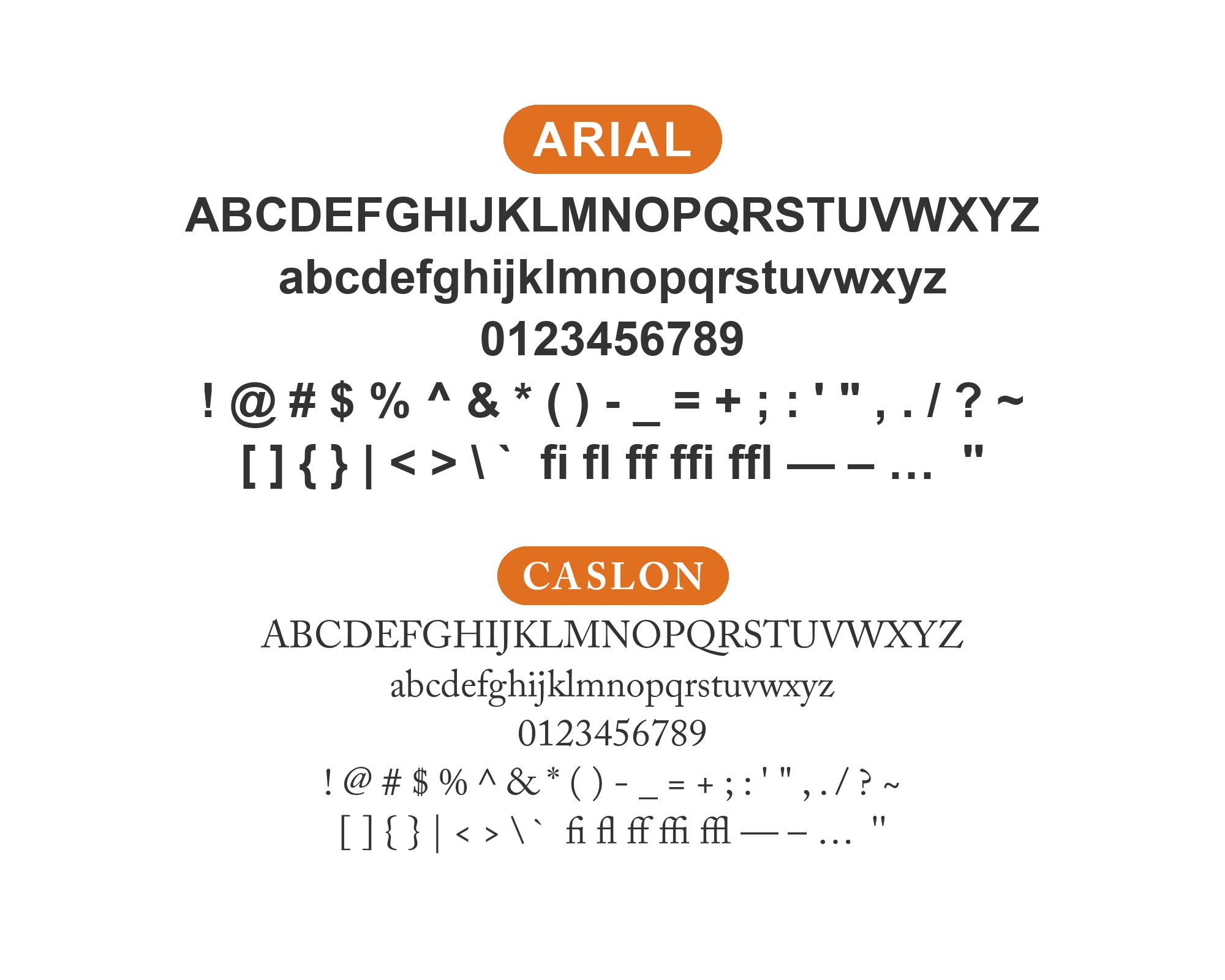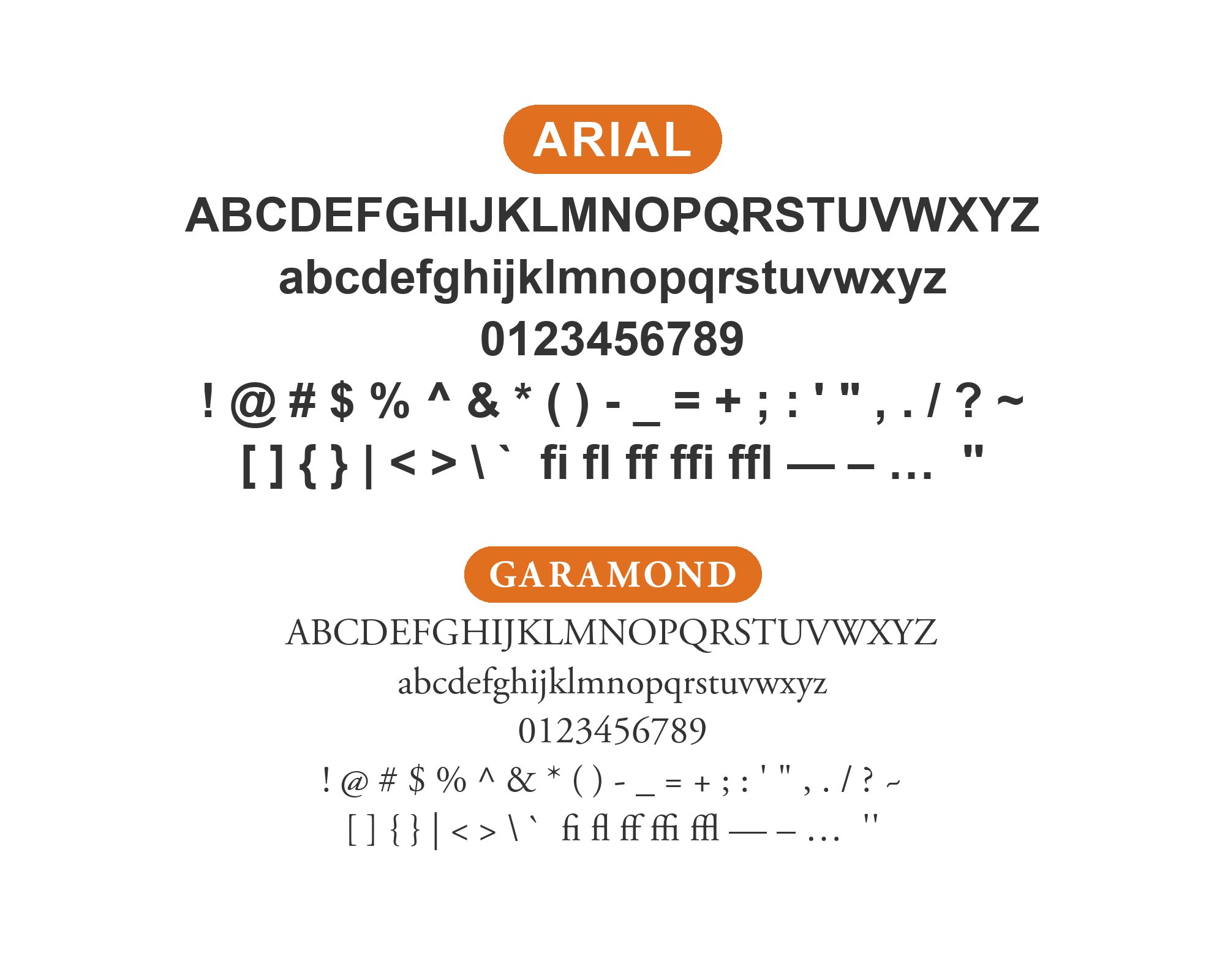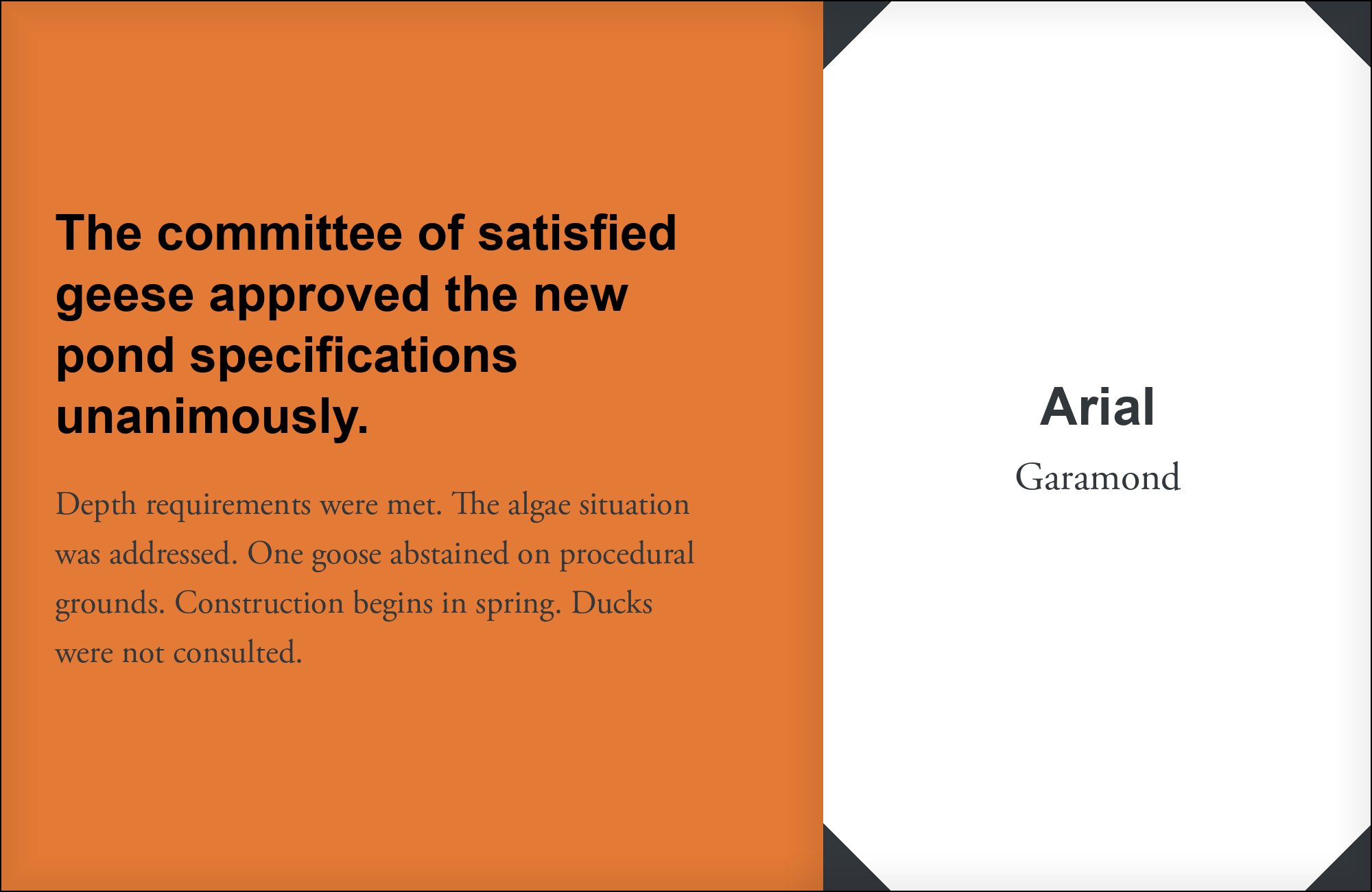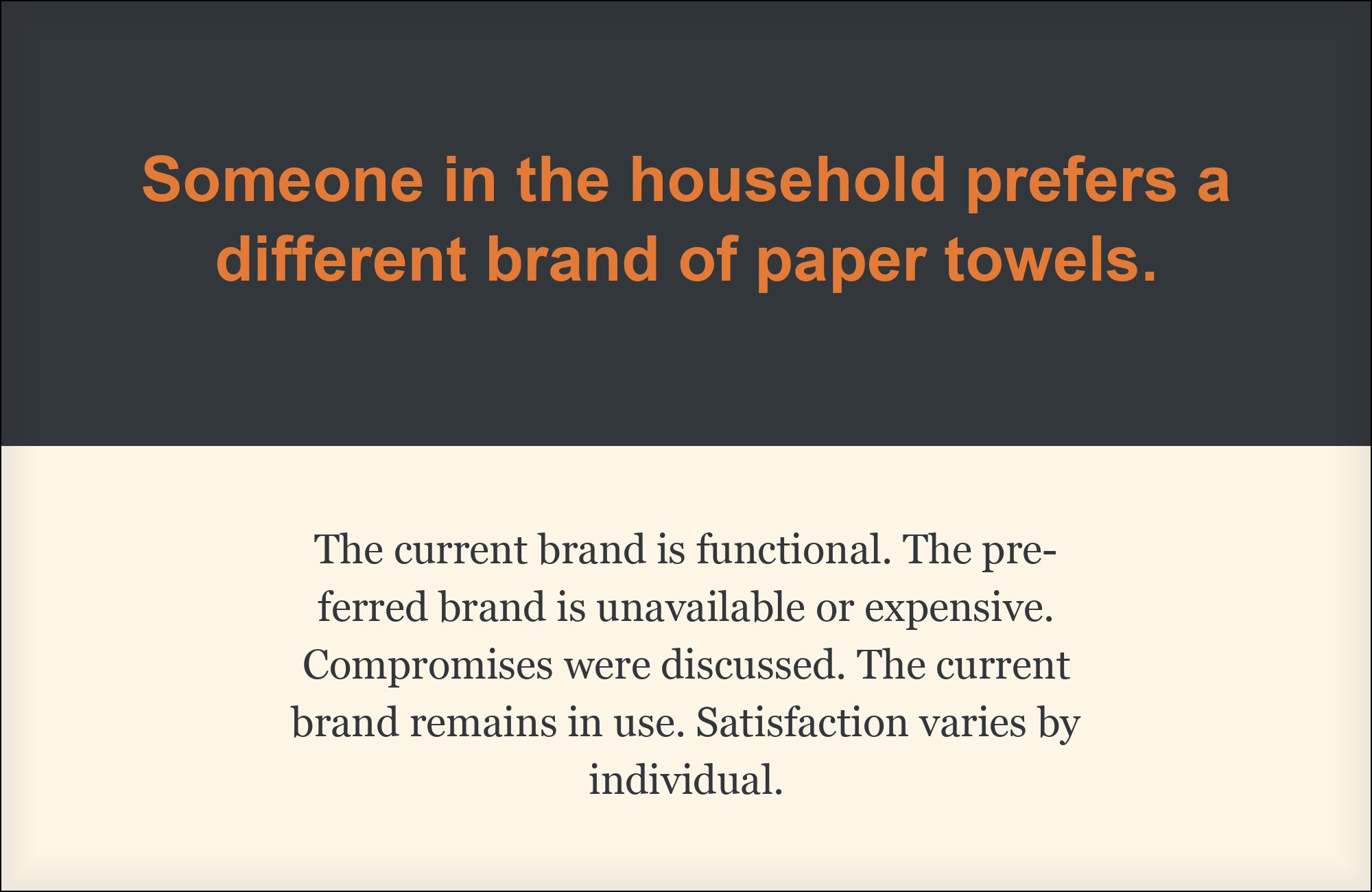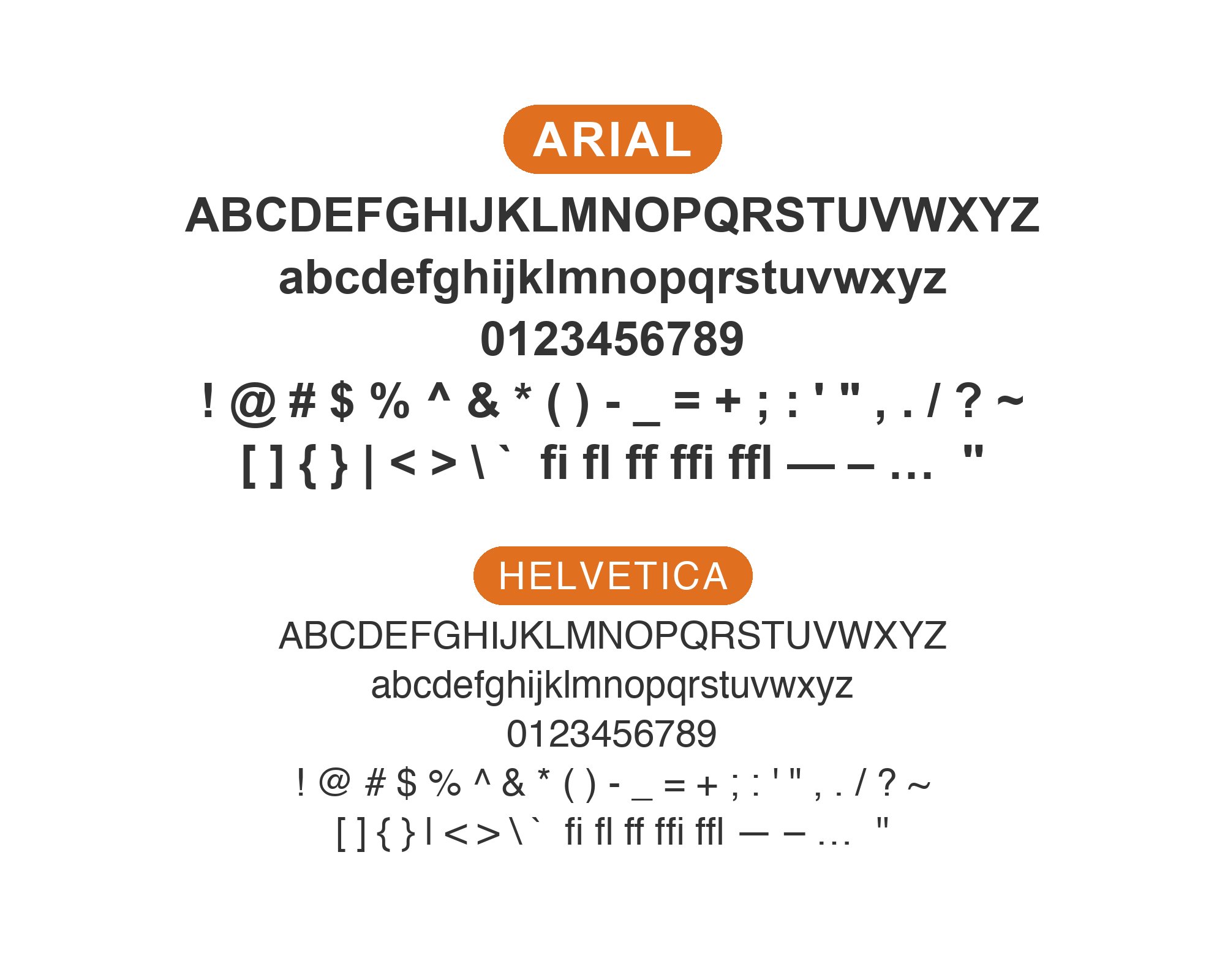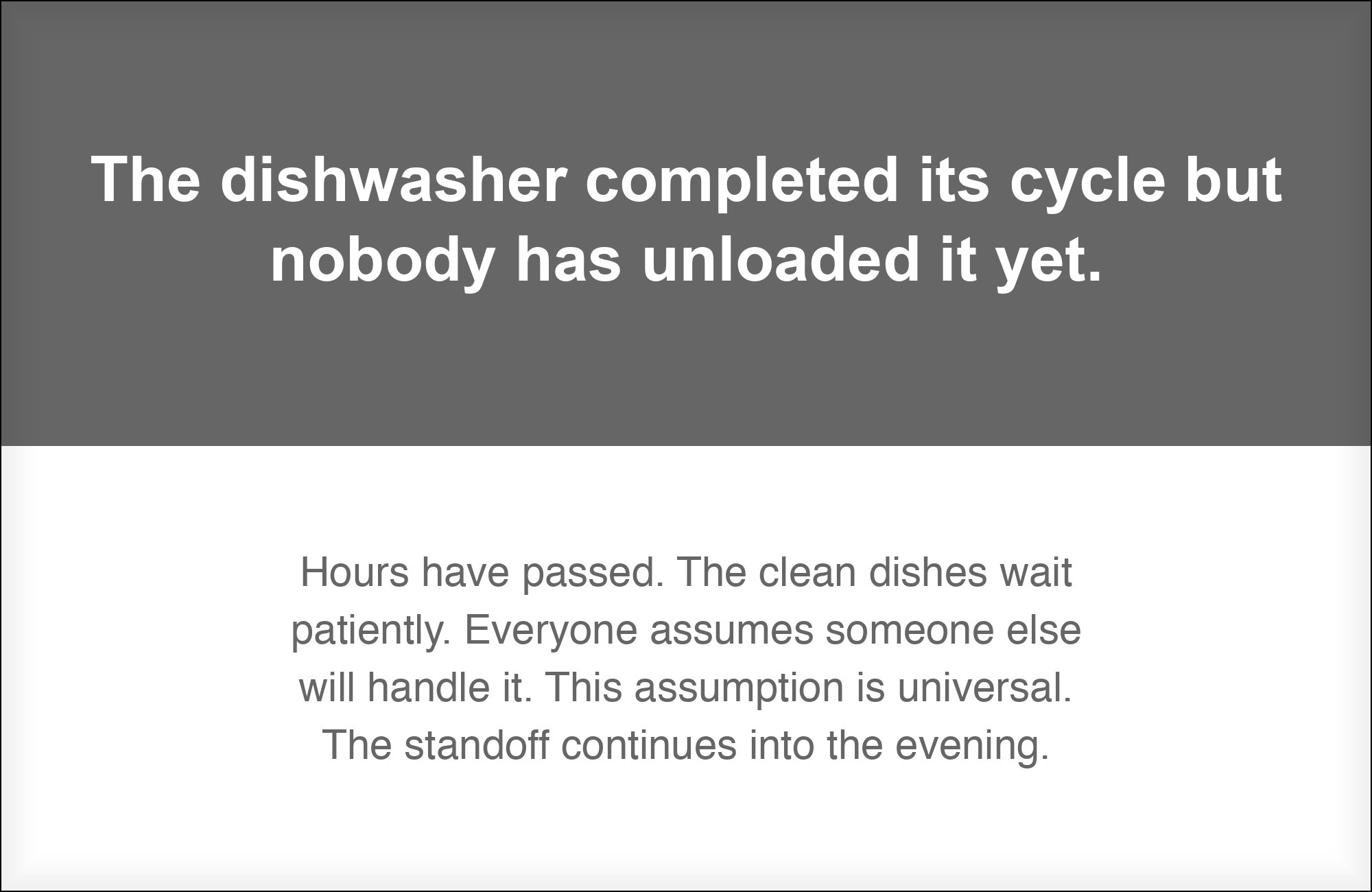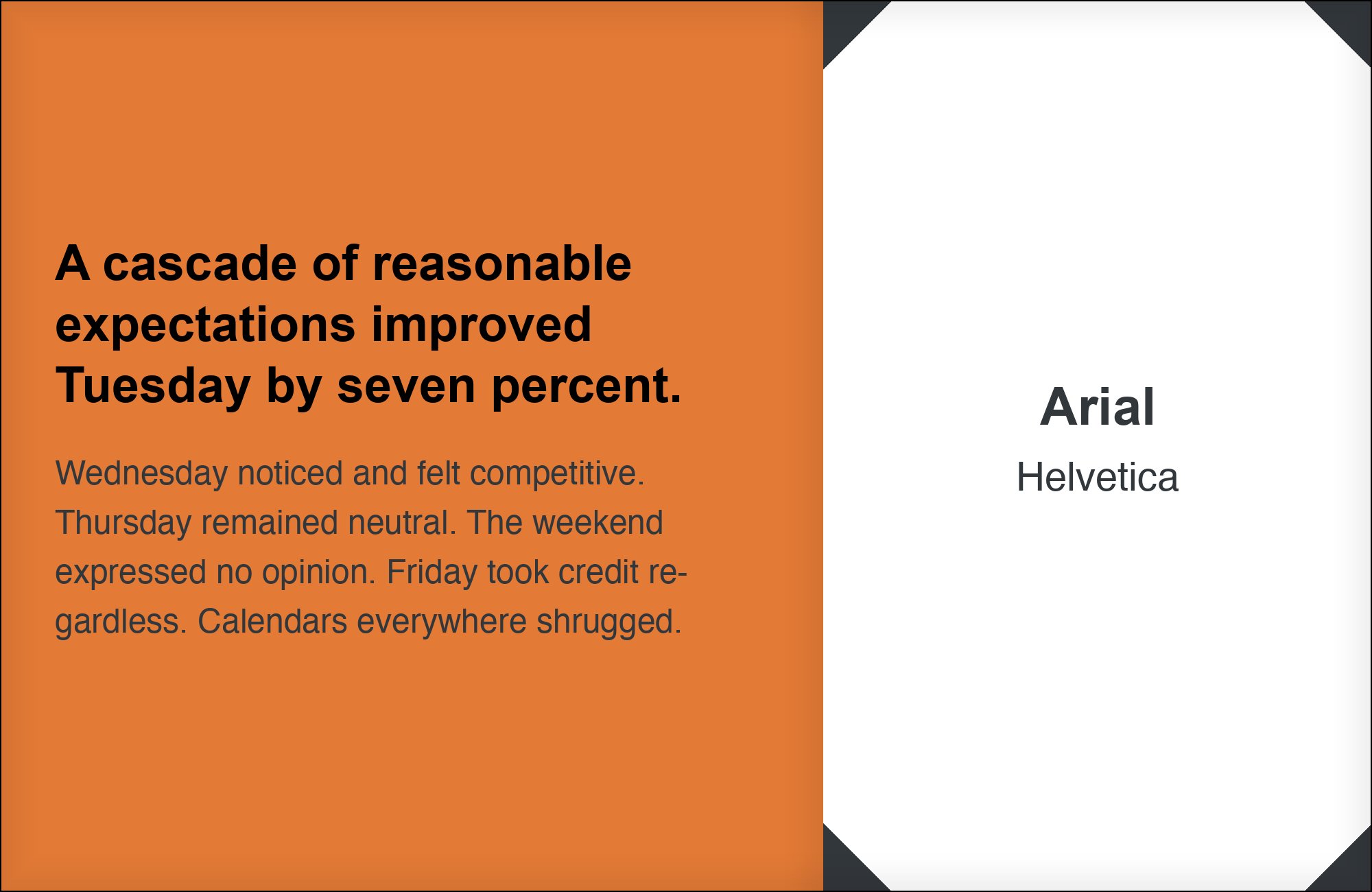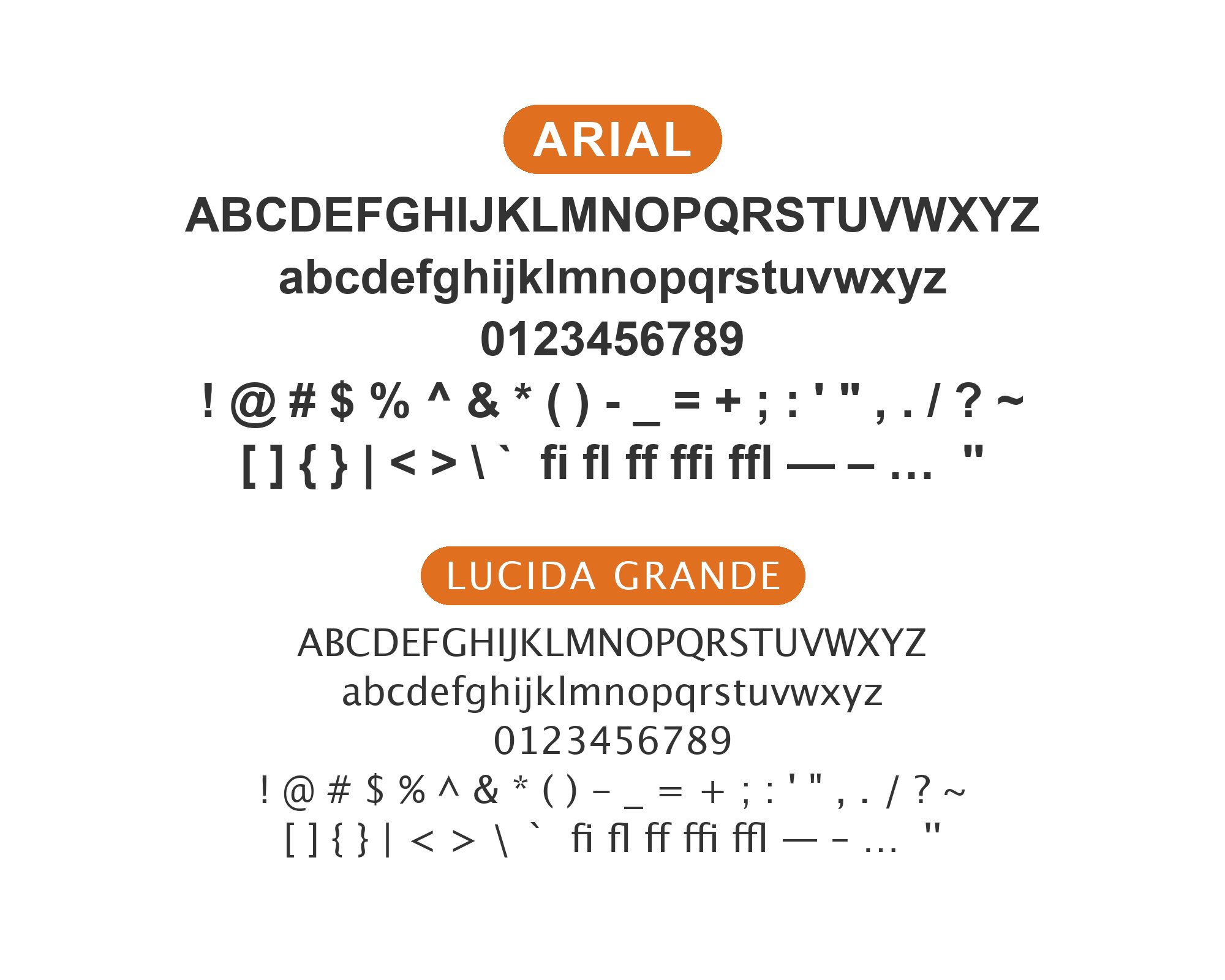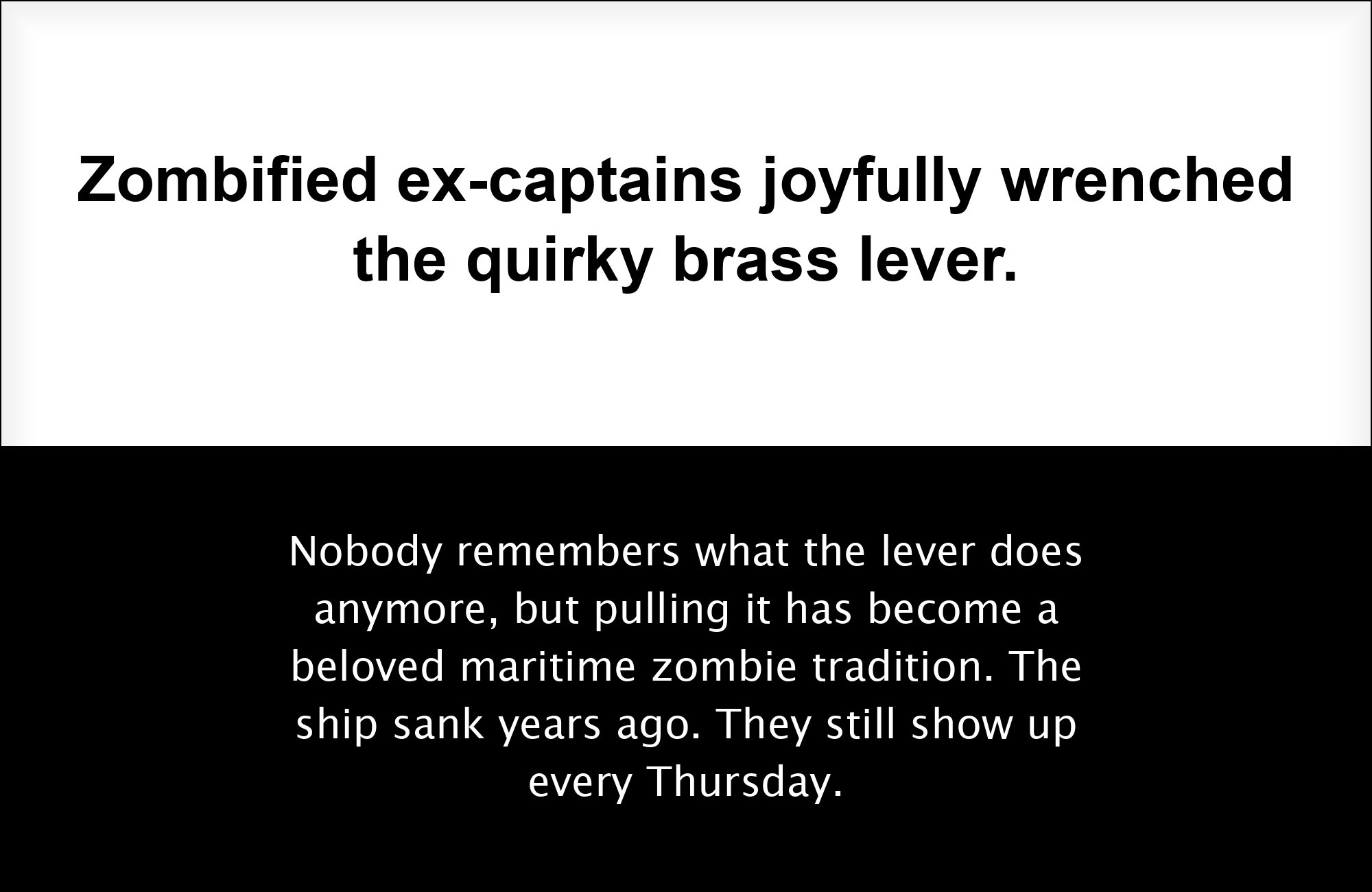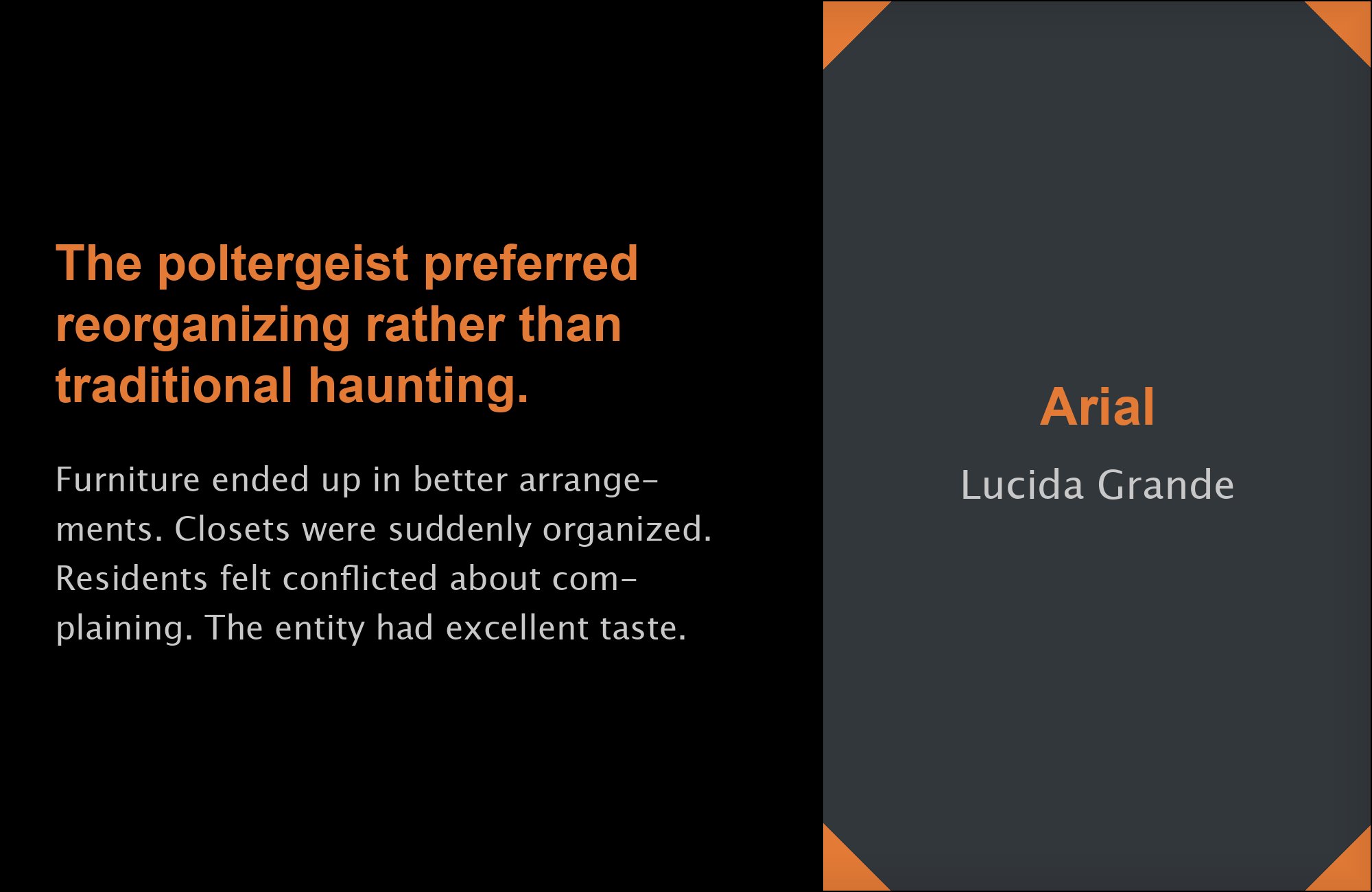
Arial pairs great with Georgia, Times New Roman and Verdana. All 14 pairings are shown below in real rendered specimens, with the reason each one works.
What fonts go with Arial? Some well-regarded typographers argue the question should not be asked at all.
Robin Nicholas and Patricia Saunders drew Arial for Monotype in 1982, originally for IBM laser printers. Microsoft included it with every version of Windows after Windows 3.1 as a metrically compatible substitute for Helvetica; it also ships with macOS. That history shows in the letterforms. Arial is a neutral grotesque with even stroke weights and generic proportions built to match Helvetica’s spacing rather than to express a point of view of its own — competent everywhere, distinctive nowhere.
That lack of a point of view is exactly what critics object to. Matthew Butterick’s Practical Typography calls Arial “a bland, zero-calorie Helvetica substitute” and recommends replacing it outright with Avenir, Franklin Gothic or Gill Sans. That argument is reasonable, and it doesn’t help someone who has to ship a document in Arial today because a client, a template or an operating system already decided for them. The fourteen pairings below assume that reality and work with it.
1. Georgia
Georgia is Matthew Carter’s 1993 screen-optimized serif — generous slab-like serifs, a large x-height and open apertures drawn to survive early low-resolution monitors. Paired with Arial, it produces a clean, undramatic division of labor: Arial for headings, labels and interface chrome, Georgia for the paragraphs. Where both fonts are available, that division needs no webfont download. It is a workhorse combination for reports, internal documentation and any project where reliability matters more than personality. Set Georgia at 16–18px for body text.
Times New Roman was drawn by Victor Lardent under Stanley Morison’s direction for The Times in 1932 — a condensed, high-contrast serif with sharp, formal serifs built for narrow newspaper columns. Set against Arial’s even, low-contrast strokes, the pairing reads as old authority meeting new utility: Times New Roman for formal body text or archival material, Arial for headings and interface labels that need to feel current. It costs nothing since both fonts ship on essentially every device in existence. This is one of the most common real-world Arial pairings, appearing repeatedly across independent design surveys.
3. Verdana
Verdana was also drawn by Matthew Carter, this time in 1996 specifically for on-screen legibility: wider counters, looser spacing and a taller x-height than Arial, built to stay readable at very small sizes on low-resolution displays. Reserving Verdana for body copy or fine print while Arial covers headlines lets each face do the job it was actually engineered for, rather than stretching Arial across every size where it doesn’t excel. The University of the West Indies’ web style guidelines recommend Verdana with Arial for titles. Both are free and pre-installed nearly everywhere, so there is no rendering risk. Use Verdana at 12–14px for captions, legal text and dense tabular data.
4. Trebuchet MS
Vincent Connare designed Trebuchet MS for Microsoft in 1996, giving it rounder terminals and slightly humanist curves that read as friendlier and more approachable than Arial’s stricter grotesque forms. Using Trebuchet MS for headings while Arial holds the body text lets a page feel warmer at the top without the personality trickling down into long paragraphs, where Trebuchet’s rounder shapes read less crisply than Arial’s plainer ones. Check that both fonts are available where the design will appear. Keep Trebuchet MS above 18px; its charm fades at small interface sizes.
Hermann Zapf designed Palatino in 1948 for the Stempel foundry — a calligraphic, broad-proportioned serif with moderate contrast and an old-style warmth closer to a humanist hand than a mechanical grid. Set as a title face above Arial’s plain body copy, it brings elegance Arial deliberately doesn’t try to match, so the pairing works as an “expressive heading, neutral body” split rather than a stylistic blend. Check the availability and license of the Palatino cut you choose before shipping it. Reserve Palatino for titles and short display lines only.
6. Open Sans
Open Sans is a humanist sans with open apertures and upright stress, drawn by Steve Matteson for legibility across both print and screen. Set against Arial’s stricter, more mechanical grotesque forms, it reads as the warmer, friendlier option — a step up from Arial’s plainness without leaving sans-serif territory entirely, which makes the swap feel like a mild upgrade rather than a jarring contrast. Typewolf’s real-world site log records the Harbor Suites project pairing Arial directly with Open Sans. Use Open Sans for body copy and Arial for administrative or system-generated text where a webfont can’t be guaranteed to load.
7. Oswald
Oswald is a condensed grotesque with tall, narrow proportions that give headlines a poster-like density Arial’s plain, even width can’t match. Pairing the two lets Oswald claim vertical space efficiently in titles while Arial keeps paragraph text at a normal, comfortable width underneath — a display/text split rather than an attempt to make the two faces look related. Typ.io’s site survey lists it among Arial’s common partners. Set Oswald in caps for short headlines; it has no useful application at body-text length.
Test any of them at the size and platform you will actually ship. Check that each font loads before you commit a layout to it.